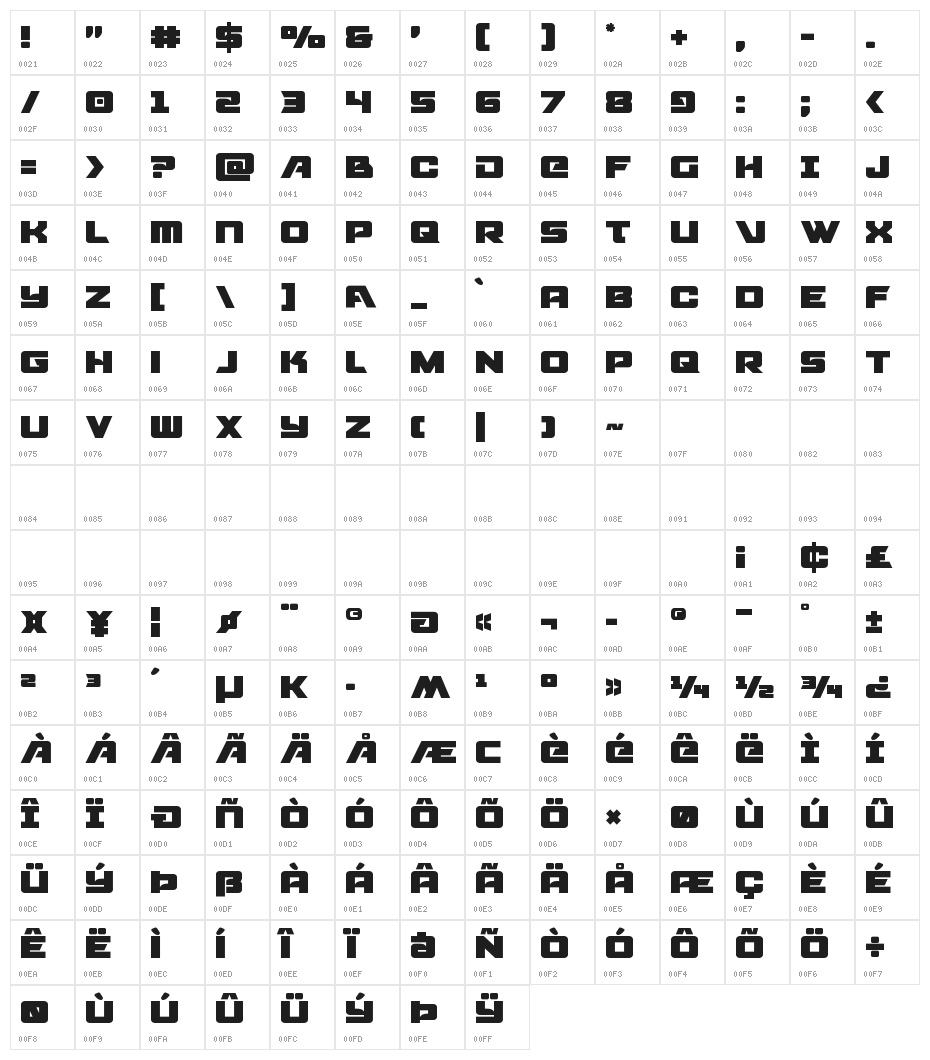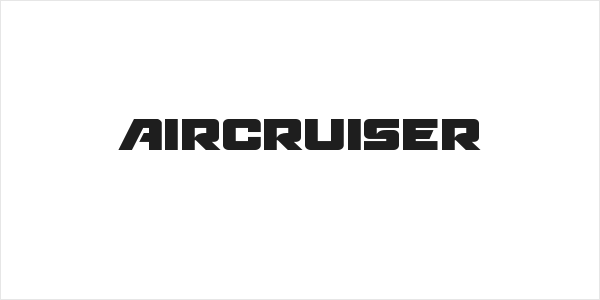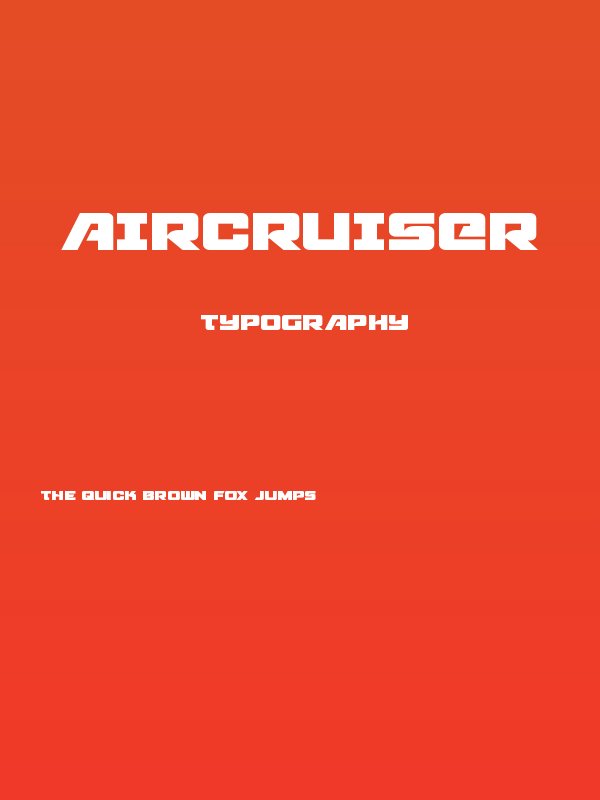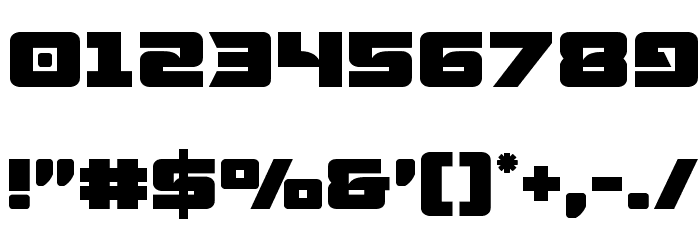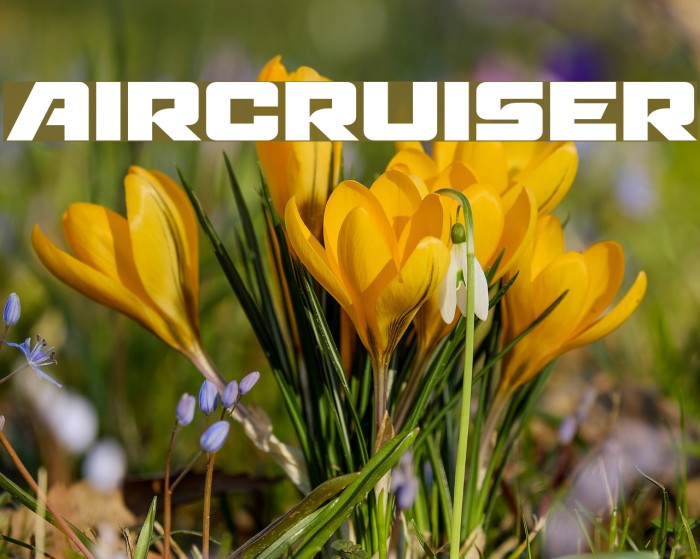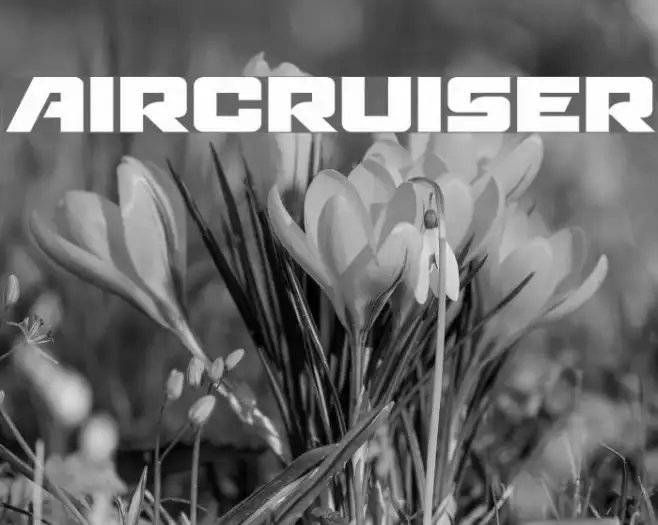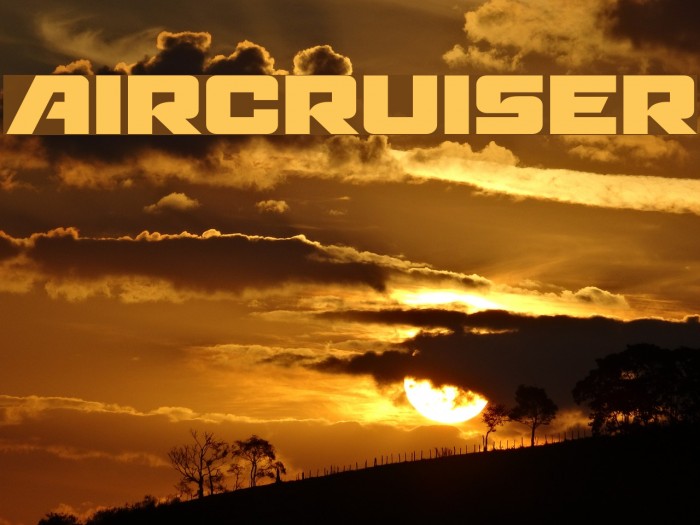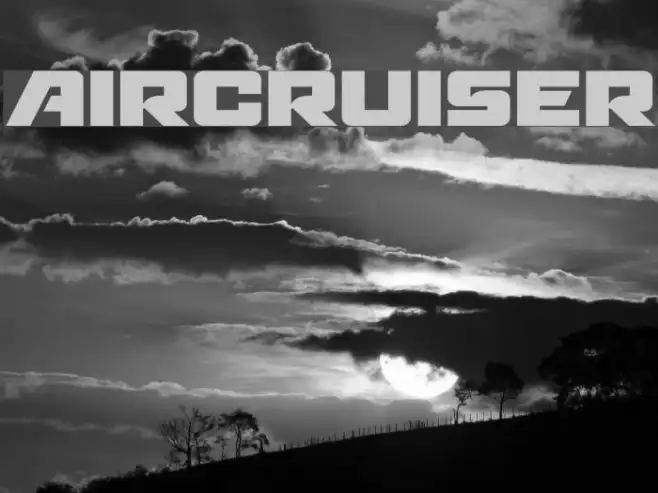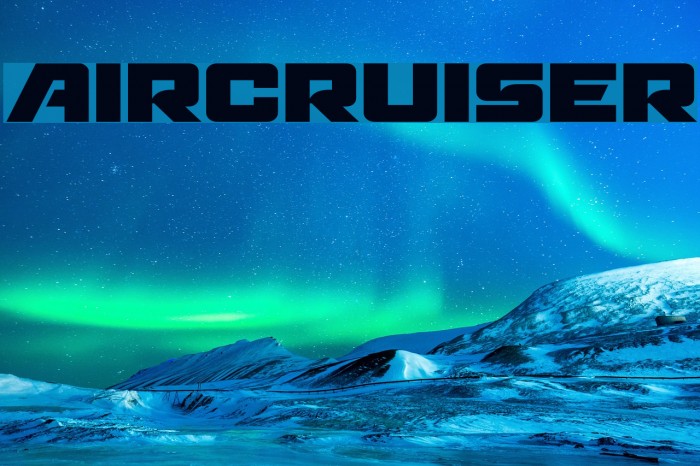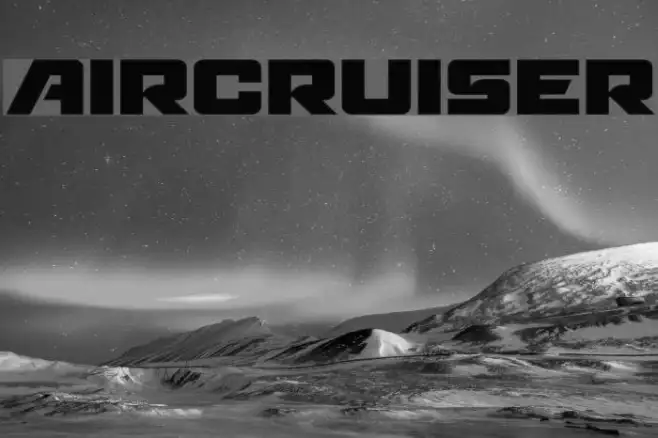
Aircruiser Font
Aircruiser Description
This font features a bold and futuristic design with a strong geometric structure. The characters are wide and have a blocky appearance, giving them a robust and impactful presence. The uppercase letters are particularly striking, with sharp angles and a consistent thickness throughout. The numbers and special characters maintain the same bold style, ensuring uniformity across all glyphs. The overall aesthetic is modern and dynamic, making it suitable for projects that require a strong visual statement.
| Proposed Projects | Ideal for use in technology branding, sports team logos, video game titles, and sci-fi movie posters. |